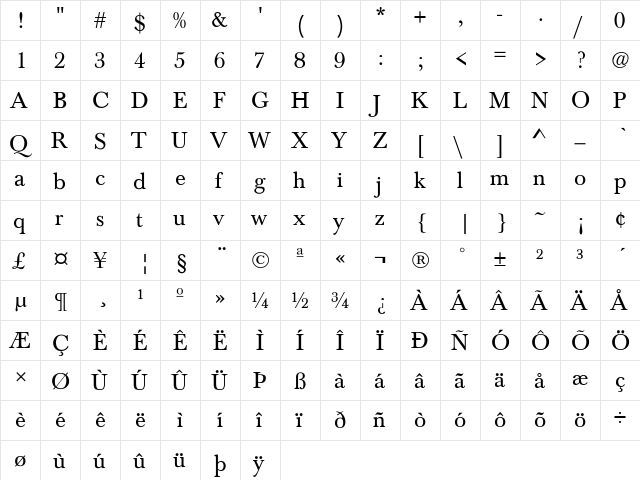
Baskerville-Normal Regular
Design Context for Baskerville-Normal Typeface
Baskerville-Normal offers clean, dependable letterforms without strong stylistic allegiance, making it a practical choice for designers who need flexibility.
Pro Tip: Use Baskerville-Normal in both headline and body roles to test its range before committing to a single application.